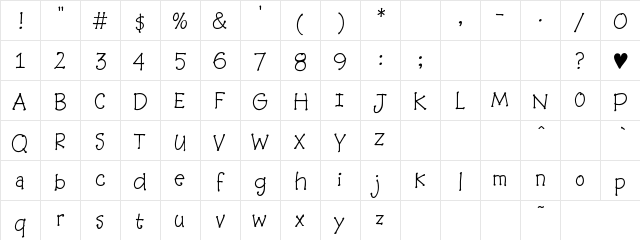
BaaBookKB Regular
Design Context for BaaBookKB Typeface
BaaBookKB is a composed and adaptable typeface that performs quietly and consistently across a wide range of design contexts.